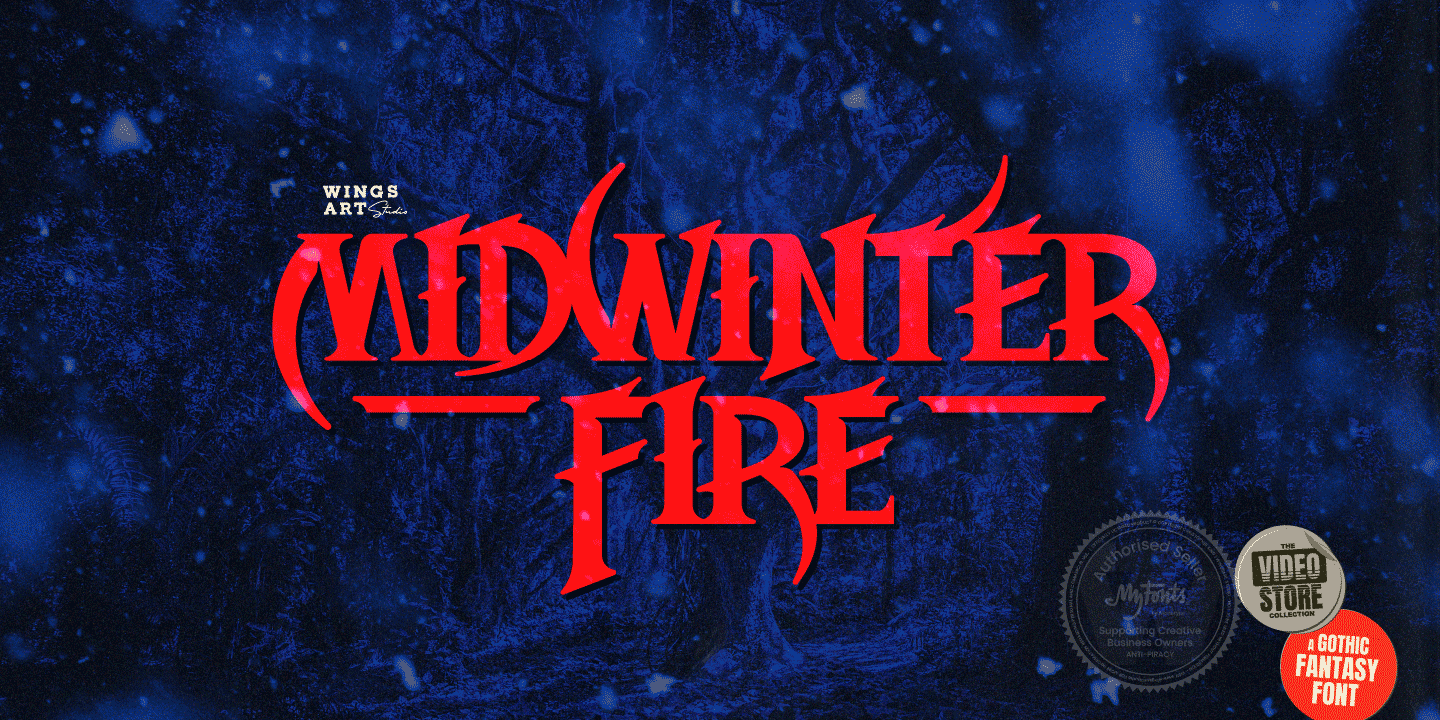
Midwinter Fire Font Free Download – A mystical, flame-kissed typeface that blends pagan winter symbolism with modern design sensibilities. Commercial projects require licensing, but free personal testing is available.
Where to Use Midwinter Fire Font?
This atmospheric font illuminates:
• Winter solstice festival branding
• Fantasy novel cover designs
• Norse/celtic-inspired jewelry packaging
• Yule log product labels
• Tabletop gaming materials
• Witchy aesthetic social media graphics
Why Midwinter Fire Font Burns Bright
This font captures ancient winter magic with:
→ Smoke-like letterforms with ember texture
→ Alternating character heights mimicking flickering flames
→ Special "burning rune" alternate glyphs
→ Perfect for foil stamping with metallic effects
→ Includes rare Nordic winter symbols
✓ Perfect for dark winter aesthetics